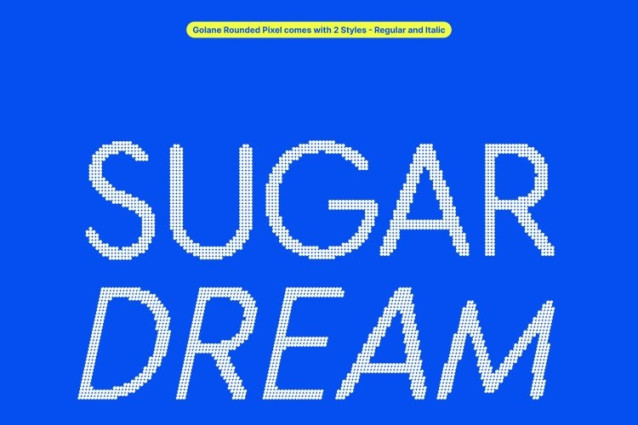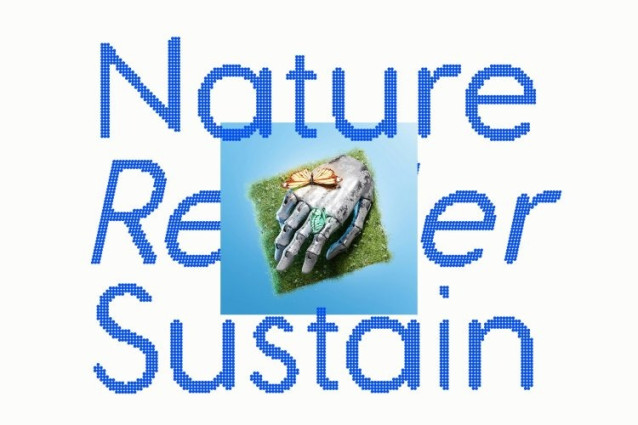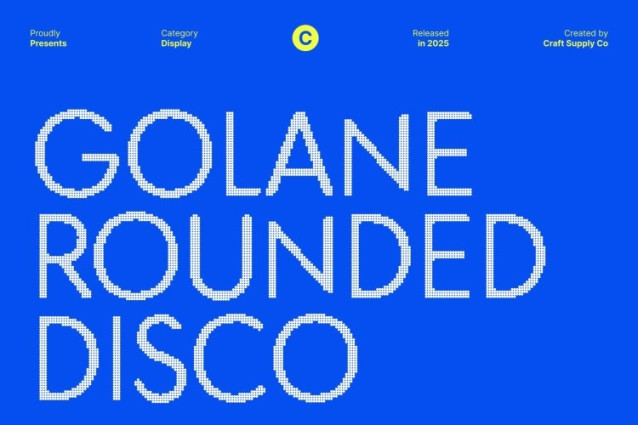
Golane Rounded Disco Font
Golane Rounded Disco Font This geometric sans serif font embodies sleek, modern design with its clean structure and balanced proportions. Its precise shapes deliver strong professional clarity, making it an excellent choice for designers seeking a contemporary and polished visual style.
Disco Sparkle Effect for Glamorous Shine
Enhanced with a shimmering disco sparkle effect, the font gains a glamorous, eye-catching personality. The subtle shine adds movement and vibrance to each letter, transforming simple typography into a lively, attention-grabbing visual element that elevates any layout.
Perfect for Editorials, Logos, and Branding Projects
Its blend of geometric precision and sparkling decoration makes this font perfect for editorials, logo work, advertising materials, and branding projects that require elegance with flair. It stands out beautifully in headlines, hero text, packaging, and expressive brand identities.
Modern, Stylish, and Visually Captivating
By combining clean geometric foundations with glittering disco accents, this font offers a unique balance of professionalism and glamour. It’s ideal for designers who want to create typography that looks modern, stylish, and undeniably eye-catching across both print and digital media.